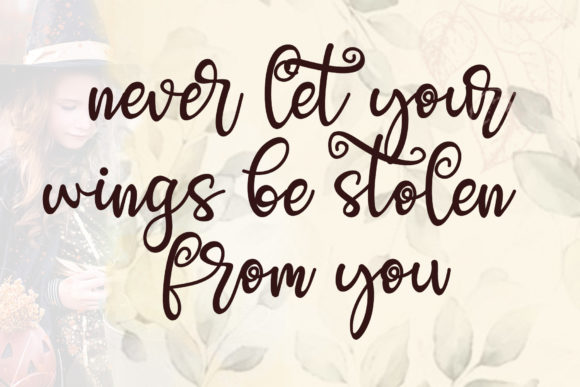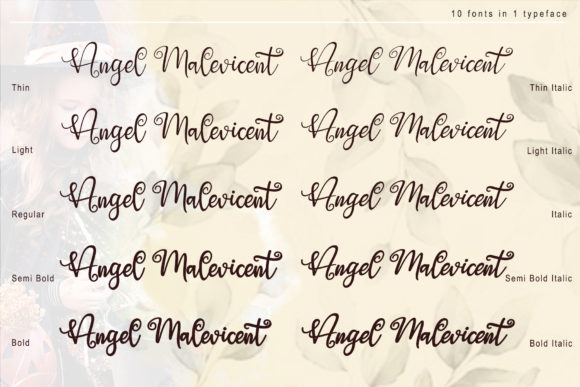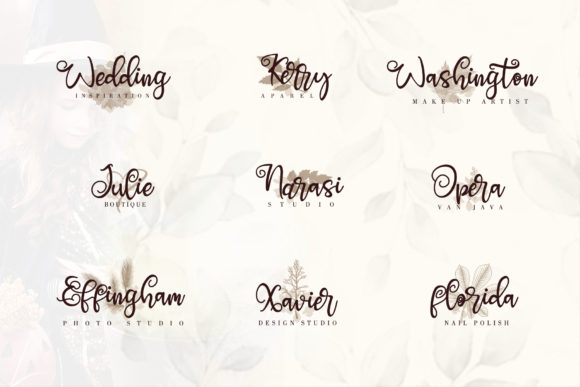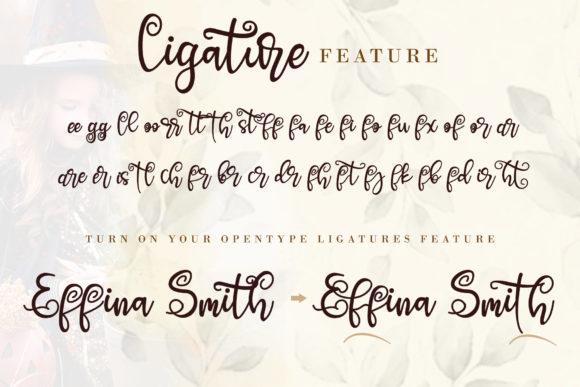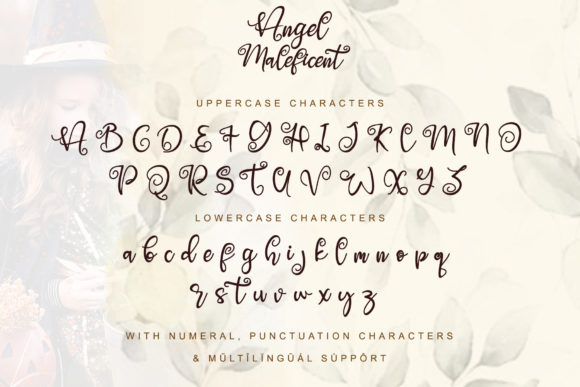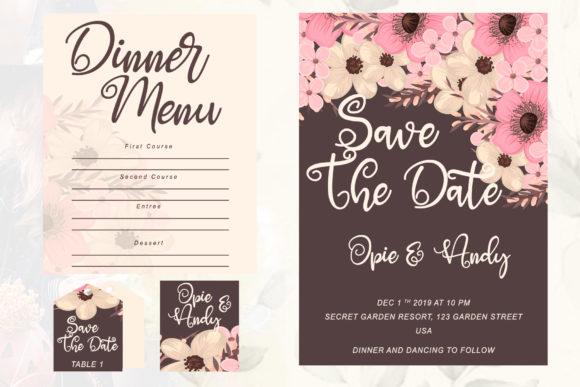
Discover the Enchanting Angel Maleficent Font: Elevate Your Designs with Elegance and Whimsy
Are you a designer or crafter looking for a font that adds a touch of magic to your creations? Look no further than the Angel Maleficent Font, a beautiful font family that offers several styles to help you achieve bright, standout designs. In this article, we’ll delve into the world of Angel Maleficent, exploring its features, benefits, and uses, as well as provide tips on how to make the most of this enchanting font.
What is Angel Maleficent Font?
Angel Maleficent is a stunning font family designed to bring a touch of elegance and whimsy to your designs. With its several styles, this font family offers versatility and flexibility, making it perfect for a wide range of projects, from digital crafts to printable art. Whether you’re creating invitations, greeting cards, or social media graphics, Angel Maleficent is sure to impress.
Key Features of Angel Maleficent Font
- Multiple Styles: The Angel Maleficent font family comes with several styles that work perfectly together, allowing you to mix and match to create unique and eye-catching designs.
- Elegant and Whimsical: This font family combines elegance and whimsy, making it perfect for designs that require a touch of sophistication and playfulness.
- High-Quality Design: Angel Maleficent is designed with high-quality craftsmanship, ensuring that your designs look professional and polished.
Benefits of Using Angel Maleficent Font
So, why choose Angel Maleficent for your designs? Here are just a few benefits of using this enchanting font:
- Standout Designs: With Angel Maleficent, you can create bright, standout designs that grab attention and leave a lasting impression.
- Versatility: This font family is versatile and can be used for a wide range of projects, from digital crafts to printable art.
- Time-Saving: With multiple styles to choose from, you can save time and effort by having a range of design options at your fingertips.
- Unique Look: Angel Maleficent offers a unique and distinctive look that sets it apart from other font families, ensuring your designs stand out from the crowd.
Tips for Using Angel Maleficent Font
To make the most of Angel Maleficent, here are some tips to keep in mind:
- Experiment with Styles: Don’t be afraid to try out different styles and combinations to find the perfect look for your design.
- Play with Colors: Angel Maleficent looks stunning with a range of colors, so experiment with different palettes to find the one that works best for your design.
- Mix and Match: Combine Angel Maleficent with other fonts and design elements to create unique and eye-catching designs.
- Pay Attention to Details: Make sure to pay attention to details, such as kerning and leading, to ensure your design looks polished and professional.
Who Can Use Angel Maleficent Font?
Angel Maleficent is perfect for a range of designers and crafters, including:
- Digital Crafters: If you create digital crafts, such as printable art, SVG files, or digital papers, Angel Maleficent is a great addition to your design toolkit.
- Graphic Designers: Graphic designers can use Angel Maleficent to add a touch of elegance and whimsy to their designs, from social media graphics to brochures.
- Crafters: Crafters who create handmade cards, invitations, and other paper crafts will love the versatility and charm of Angel Maleficent.
In conclusion, Angel Maleficent Font is a beautiful and versatile font family that offers a range of styles to help you create bright, standout designs. With its elegant and whimsical charm, this font family is perfect for designers and crafters looking to add a touch of magic to their creations. Whether you’re a digital crafter, graphic designer, or crafter, Angel Maleficent is sure to become a favorite in your design toolkit.